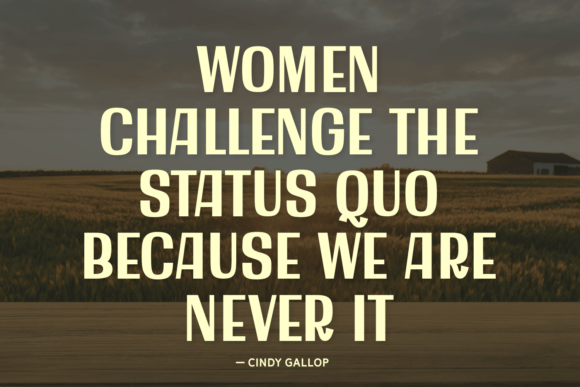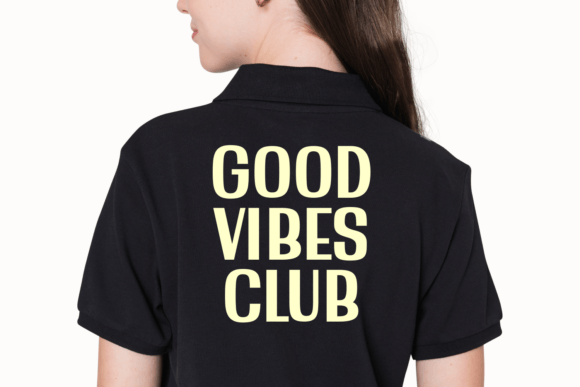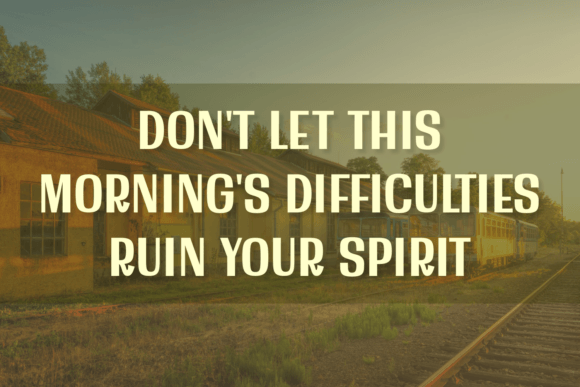
Designing with Simplicity and Elegance
Have you ever found yourself stuck in front of a blank page, trying to conjure up the perfect font to match your design vision? I know I have. It’s that moment of frustration, followed by a spark of inspiration, that led me to discover the Gambir Village Font. This modern sans-serif font is a game-changer for designers seeking simplicity and elegance in their work.
Gambir Village Font is more than just a font – it’s a design solution that effortlessly blends style with readability. Its clean lines and balanced proportions make it versatile for branding, logos, and editorial design. Whether you’re working on a contemporary project or seeking a professional yet approachable aesthetic, Gambir Village Font is the perfect choice.
Gambir Village Font Key Features
- Font Family: Gambir Village
- Unique Characteristics: The font features a unique, hand-drawn design with a rural, village-inspired aesthetic
Gambir Village Font Review
Gambir Village Font is a unique and eye-catching font that’s sure to grab attention. ✨ The organic, handwritten feel is reminiscent of traditional village scripts, making it perfect for designs that need a touch of cultural authenticity. ✨ The font’s irregularities and imperfections add to its charm, giving it a sense of handmade quality that’s hard to find in digital fonts.
One of the standout features of Gambir Village Font is its versatility. ✨ It works well for a wide range of applications, from wedding invitations and event branding to restaurant menus and cultural exhibits. The font’s flexibility also makes it a great choice for designers who want to create a unique and memorable visual identity.
- ⚠️ The font may not be suitable for text-heavy designs, as its irregularities can make reading difficult.
- ⚠️ Some users may find the font’s imperfections distracting or unprofessional, depending on the context.
- ⚠️ The font’s availability in various weights and styles may be limited, which can restrict its use in certain designs.
Overall, Gambir Village Font is a great choice for designers who want to add a touch of cultural flair to their projects. While it may have some limitations, its unique qualities and versatility make it a valuable addition to any design library.
Tips for Getting the Most Out of Gambir Village Font
1. Use Gambir Village Font for designs that require a traditional or vintage feel.
2. Experiment with different font sizes and styles to achieve the desired effect.
3. Pair Gambir Village Font with other fonts to create a unique and interesting design.
Common Use Cases for Gambir Village Font
1. Designing posters and flyers for cultural events or festivals.
2. Creating invitations and announcements for weddings or other special occasions.
3. Developing branding materials for traditional or vintage-themed businesses.
Alternatives to Gambir Village Font
Pacifico is a beautiful, elegant script font that is perfect for creating a luxurious and sophisticated feel. It has a more refined and polished look compared to Gambir Village Font, making it ideal for high-end branding and packaging design. When to use: Luxury branding, high-end packaging, and elegant invitations.
Comparison: Pacifico is more polished and refined, while Gambir Village Font has a more rustic and village-like feel.
Great Vibes is a modern script font that is perfect for creating a fun and energetic feel. It has a more casual and laid-back look compared to Gambir Village Font, making it ideal for creative and innovative designs. When to use: Creative branding, innovative packaging, and playful invitations.
Comparison: Great Vibes is more modern and energetic, while Gambir Village Font has a more traditional and village-like feel.